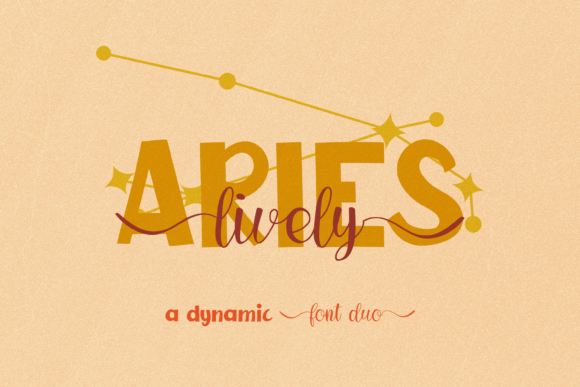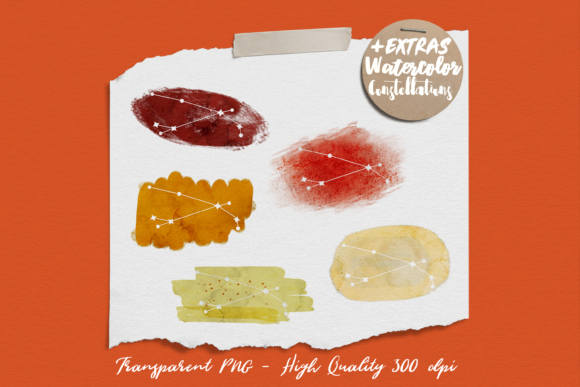
About Lively Aries Duo Font
Lively Aries Duo consists of two fonts (script and display) designed to complement each other perfectly. Together or apart, the fonts are ideal for adding a chic and cheery touch to your crafts. This font is PUA encoded which means you can access all of the glyphs and swashes with ease!